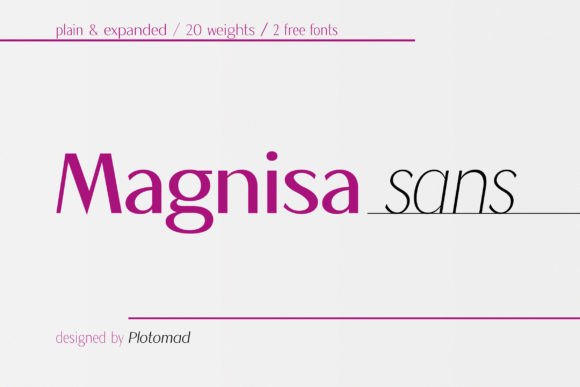
Introducing Magnisa Sans Font, a captivating and elegant sans-serif font that will take your design projects to the next level. Created by the talented team at Plotomad, this font is specifically designed to elevate your work and leave a lasting impression.
With its exquisite and chic design, Magnisa Sans Font effortlessly combines elegance and modernity. Its clean lines and sleek appearance exude sophistication, making it the ideal choice for luxury branding, editorial design, and high-end projects. Whether you're working on a prestigious logo or a refined publication, this font is guaranteed to add a touch of class.
One of the standout features of Magnisa Sans Font is its versatility. It effortlessly adapts to any design style, allowing you to create a polished and refined look. From minimalist designs to bold and extravagant layouts, this font seamlessly integrates with your vision, giving your projects a truly unique and captivating appeal.
But what sets Magnisa Sans Font apart from the rest? It's the emotional connection it establishes with your audience. With every letter and curve, this font conveys a sense of sophistication and elegance. It evokes feelings of exclusivity and refinement, instantly drawing attention and leaving a lasting impression on anyone who lays eyes on it.
Imagine the impact your brand will have with Magnisa Sans Font as its cornerstone. Your logo will exude luxury and timeless beauty, capturing the essence of your brand and leaving a lasting imprint in the minds of your customers. Your editorial designs will come to life, captivating readers with their polished and refined aesthetic.
In conclusion, Magnisa Sans Font is the epitome of elegance and modernity. Its versatility, sophistication, and emotional appeal make it the perfect choice for designers looking to create captivating and eye-catching projects. Elevate your designs, captivate your audience, and leave a lasting impression with Magnisa Sans Font. Download it now and unlock a world of possibilities.